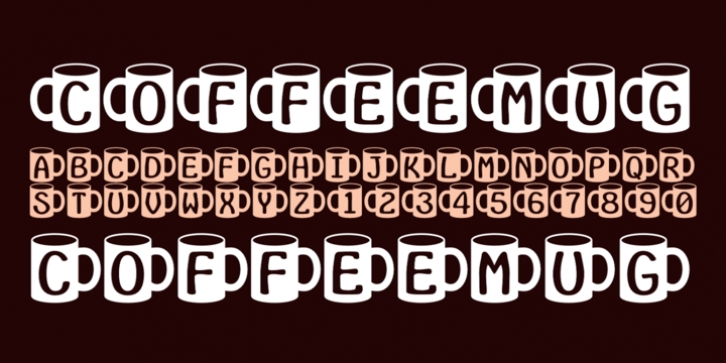
CoffeeMug has letters on coffee mugs. Upper-case letters have the handles to the left and lower-case characters have the handles to the right. The letters on the mugs are from the typeface InsideLetters.